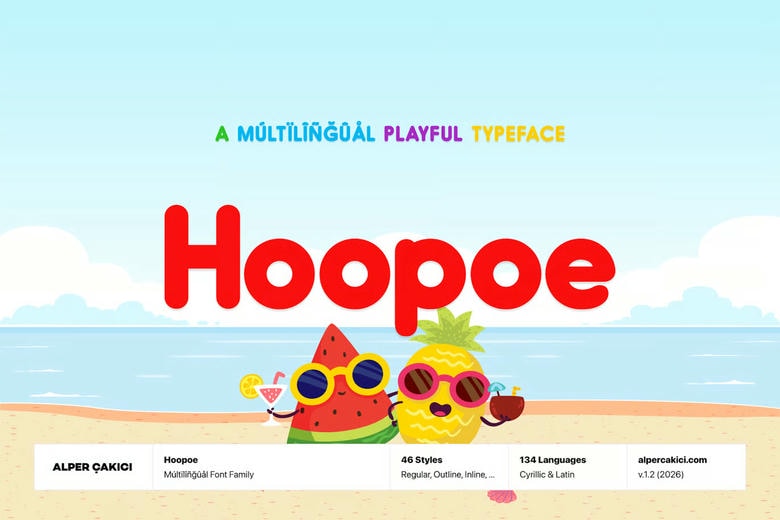
Hoopoe Font Family
Hoopoe is a rounded geometric sans-serif font that feels warm and clear. Its soft curves and balanced shapes give it a friendly, approachable style, but it still looks clean and modern. This makes it a good option for both digital and print projects.
Hoopoe offers 46 styles, such as Regular, Italic, Brush, Rough, Pencil, Outline, Rimmed, and Inline. With so many choices, designers have a lot of creative freedom. It also works well for multilingual projects and helps keep a consistent look across different languages and audiences.
Hoopoe Sans Serif Font Family